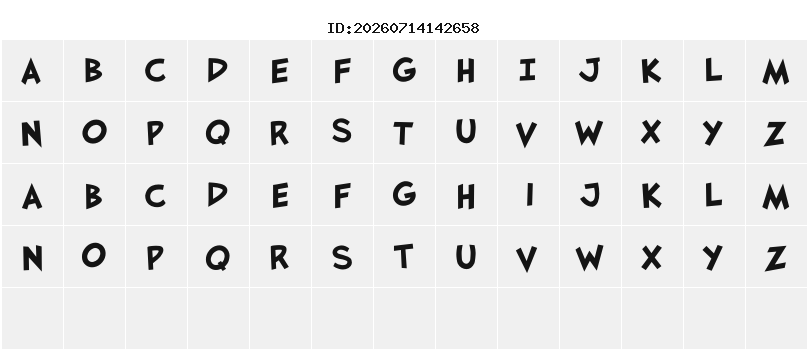
JaySFX Preview
• Font Name: JaySFX
• Font ID: JasonArthur: JaySFX Bold: 2008
• Full Font Name: JaySFX Bold
• Version: Version 1.101;PS 001.001;Core 1.0.38
• PostScript Name: JaySFX-Bold
• Character Count: 57
• Designer: Jason L. Arthur
• Manufacturer: Jason Arthur
About JaySFX.otf
JaySFX.otf is a modern, elegant sans-serif font designed for ultimate readability and visual harmony. Perfect for branding, headlines, web design, and print materials.